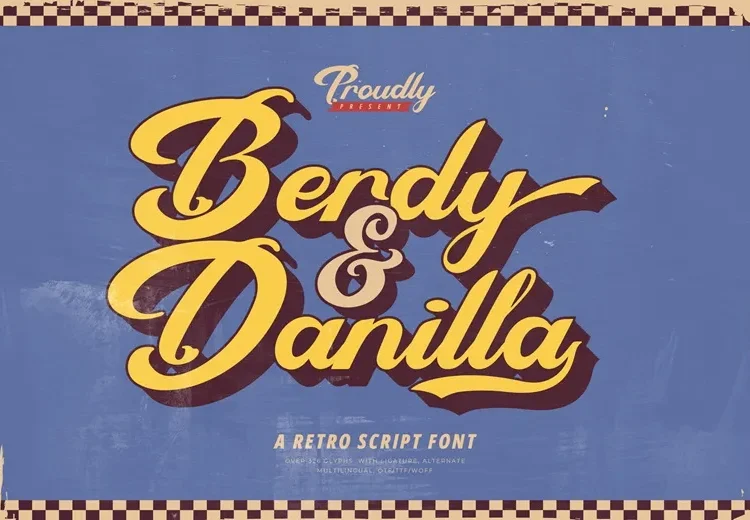
Berdy Danilla Font
Berdy Danilla Font is a charming old-school script typeface that combines a playful and classy design. With its smooth, rounded letters, this font exudes a nostalgic vibe, making it perfect for projects that aim to evoke a retro aesthetic. Whether you’re looking to create invitations, posters, or branding elements, Berdy Danilla adds a touch of vintage flair that sets your designs apart.
The unique character of Berdy Danilla allows it to shine in various applications, from whimsical wedding invitations to eye-catching promotional materials. Its old-fashioned look gives it a distinct personality, making it an excellent choice for brands wanting to establish a classic yet fun identity. The script’s flowing lines and well-crafted curves bring a sense of warmth and approachability, appealing to a wide audience.
This font is not only visually appealing but also versatile enough to suit multiple design styles. Whether you’re working on a nostalgic event or simply want to add a retro twist to your branding, Berdy Danilla provides the perfect solution. It encourages creativity and playfulness in your projects, allowing you to express your ideas with charm.